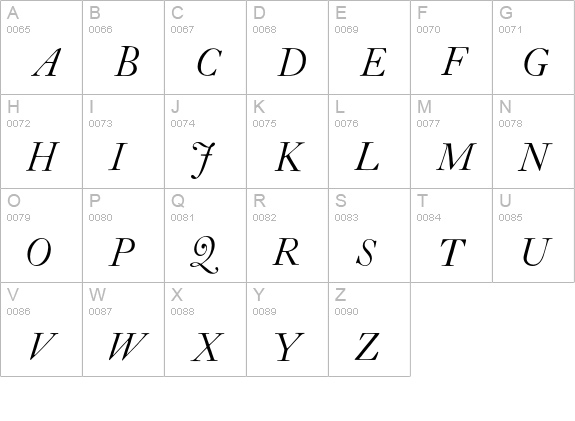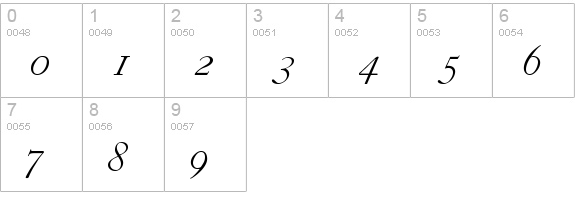
CaslonZH-Italic Font Details
CaslonZH-Italic is a distinctive, italic variant in the CaslonZH typeface family \xE2\x80\x94 well suited to design and typography projects.
CaslonZH-Italic font is a timeless and elegant typeface that exudes sophistication and charm. With its delicate slant and graceful curves, this italic version of the classic Caslon typeface adds a touch of flair to any design project. The slender letterforms of CaslonZH-Italic create a sense of movement and fluidity, making it a versatile choice for a wide range of applications. This exquisite font is perfect for adding a touch of elegance to invitations, branding materials, editorial designs, and more. Whether you're looking to create a romantic wedding invitation or a polished magazine layout, CaslonZH-Italic is sure to elevate your design to the next level. Best of all, CaslonZH-Italic is available for free download at FontsMarket.com. Now you can enjoy the beauty and sophistication of this stunning typeface without breaking the bank. Don't miss out on the opportunity to add CaslonZH-Italic to your font collection today!